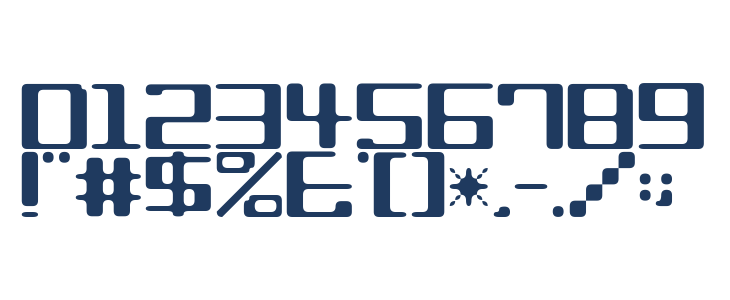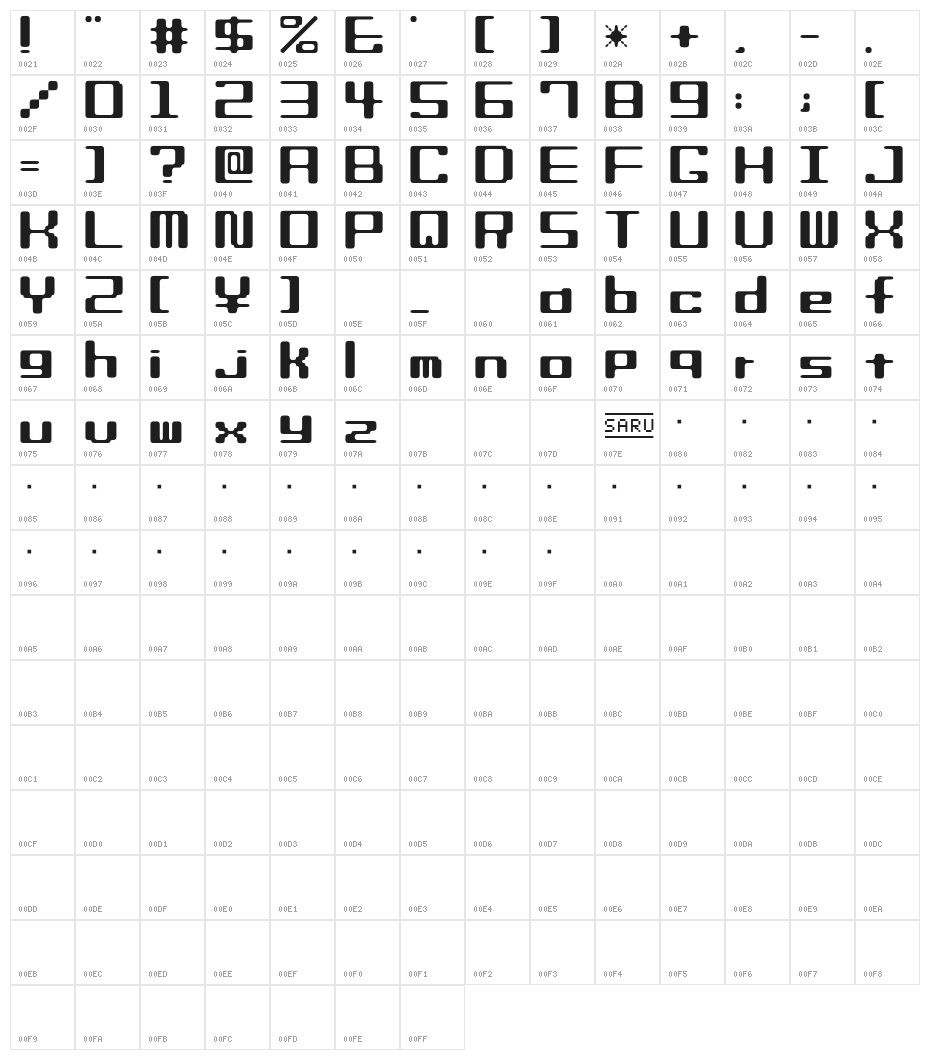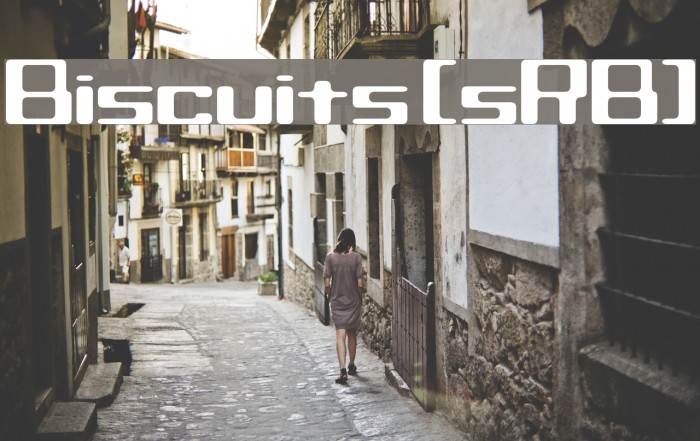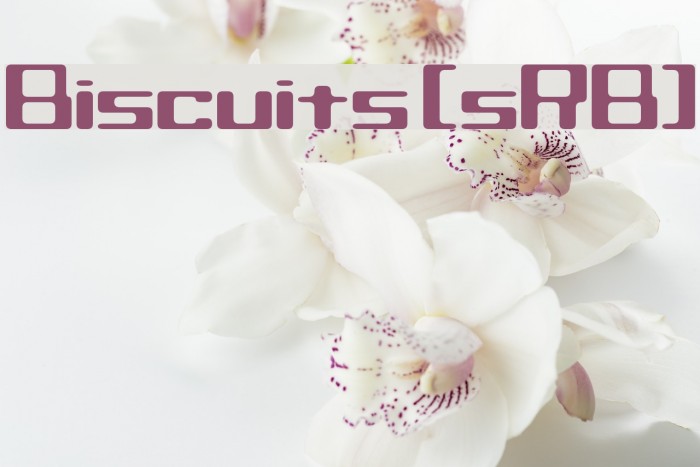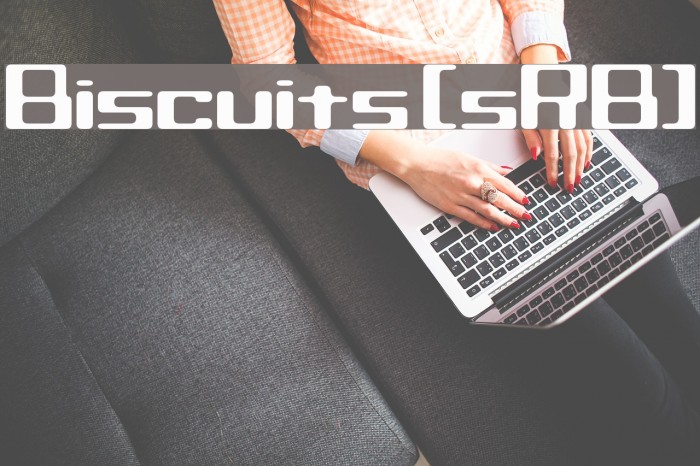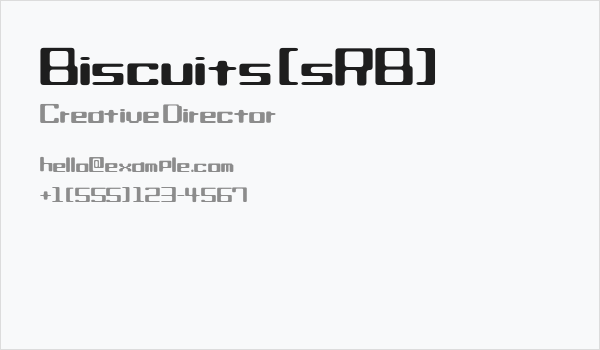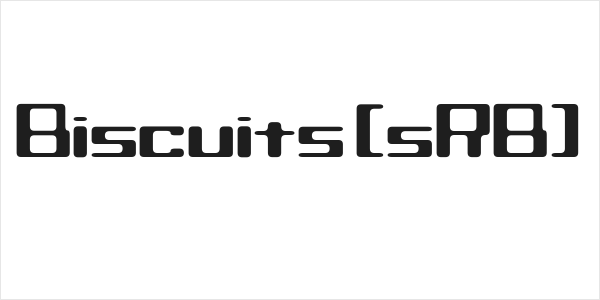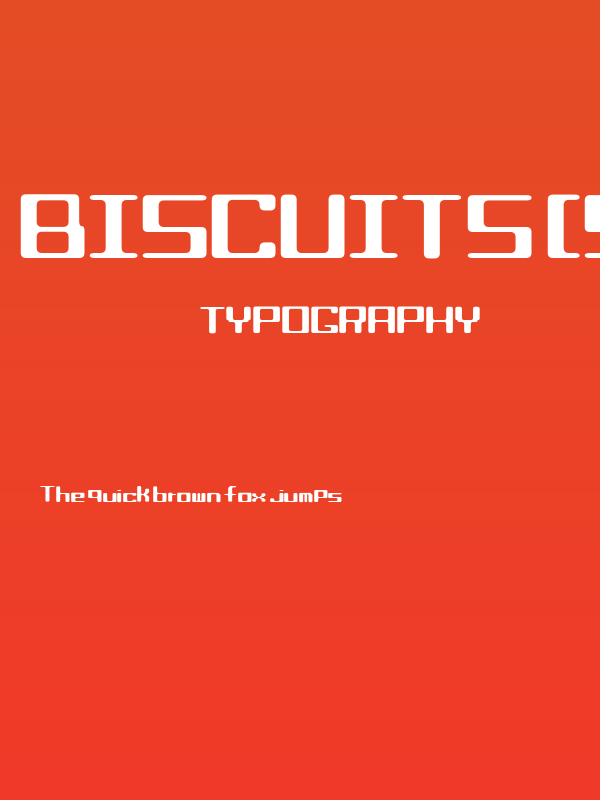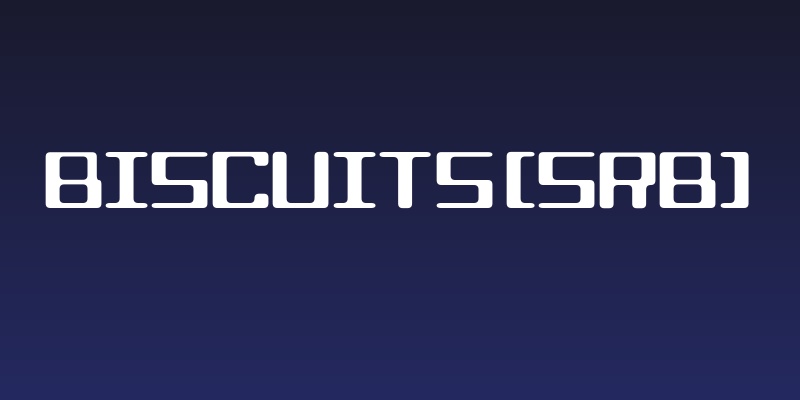
Biscuits [sRB] Font
Biscuits [sRB] Description
This font features a bold, geometric style with a distinctly modern and futuristic appearance. The characters are constructed with thick, uniform strokes, creating a sense of solidity and strength. The design incorporates rounded edges and a consistent width throughout, giving it a cohesive and structured look. The uppercase and lowercase letters maintain a similar height, enhancing readability while preserving a unique aesthetic. The numerals and special characters follow the same design principles, ensuring uniformity across all elements. This font's boldness and clarity make it suitable for impactful visual communication.
| Proposed Projects | Ideal for technology branding, sci-fi themed projects, video game interfaces, and modern poster designs. |